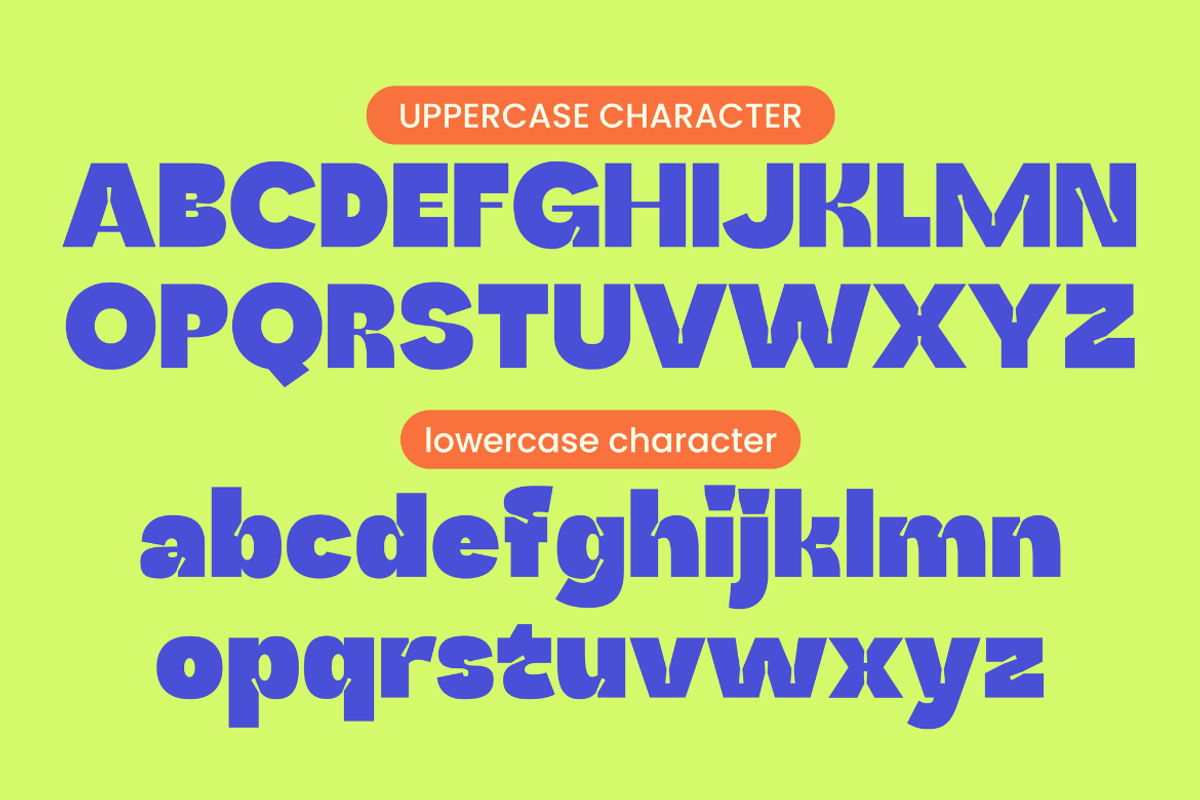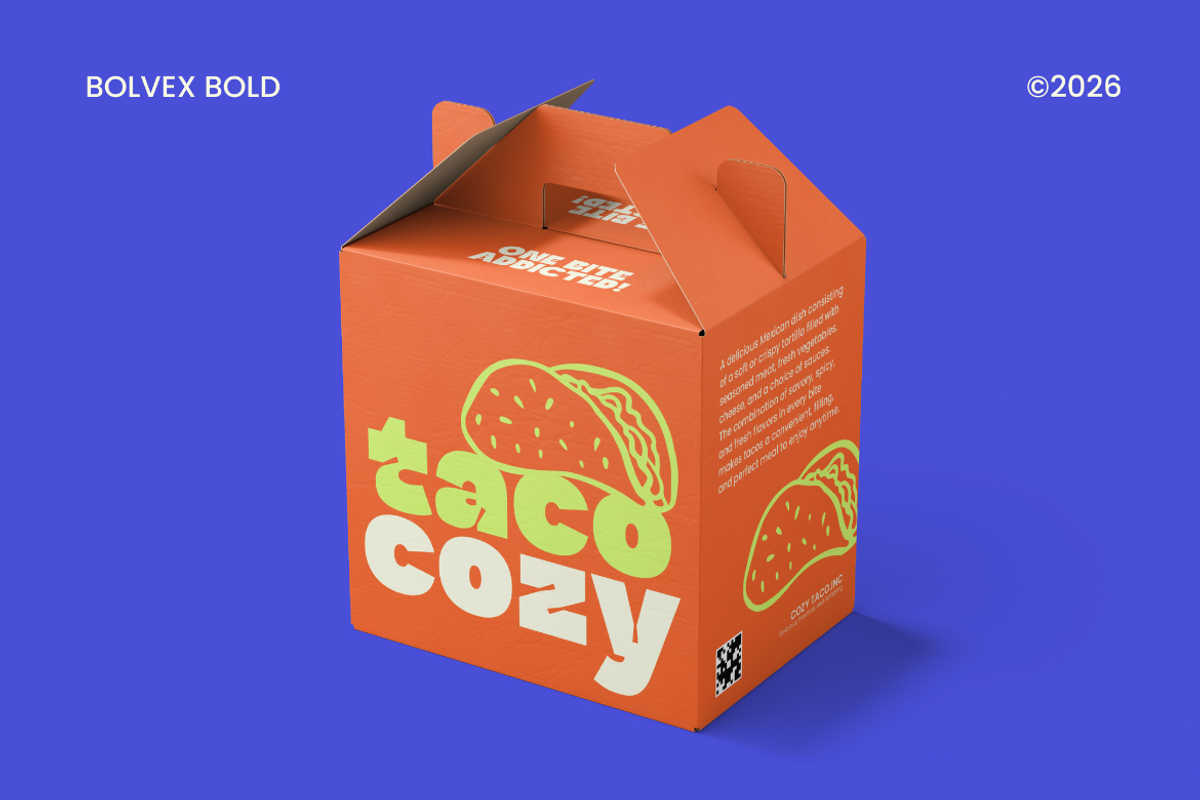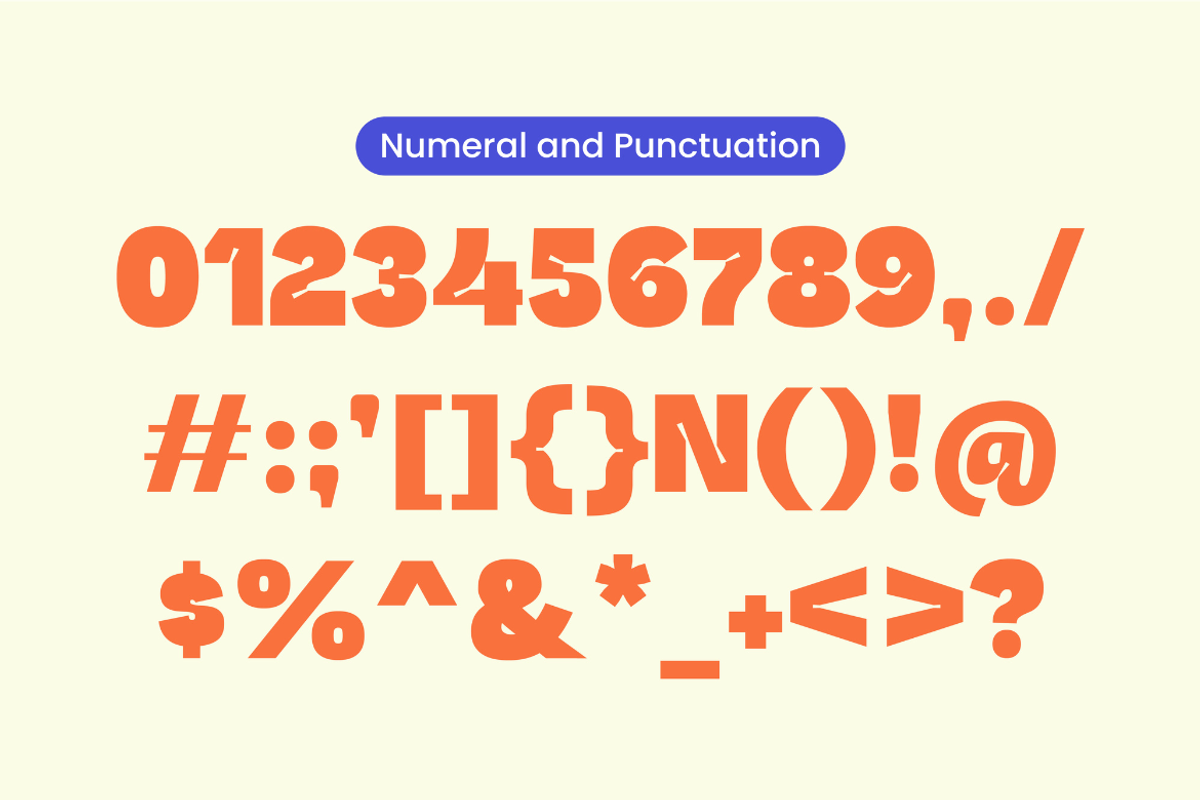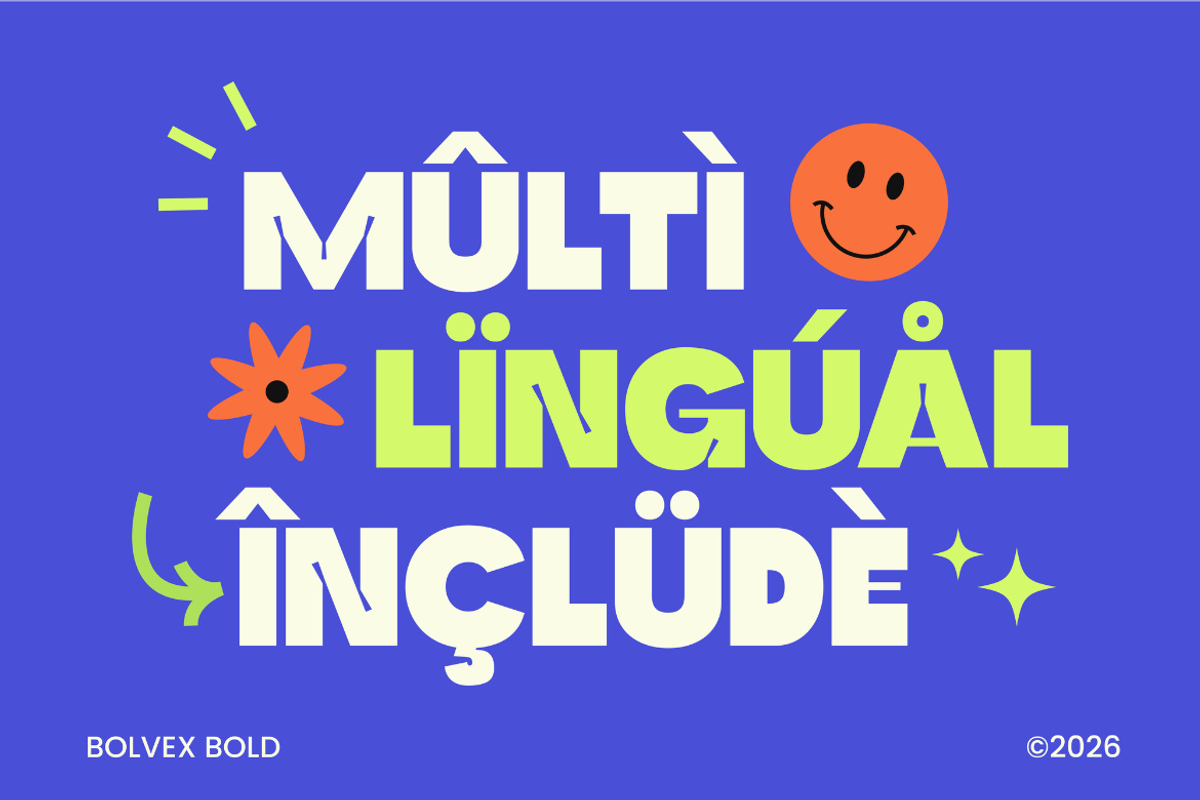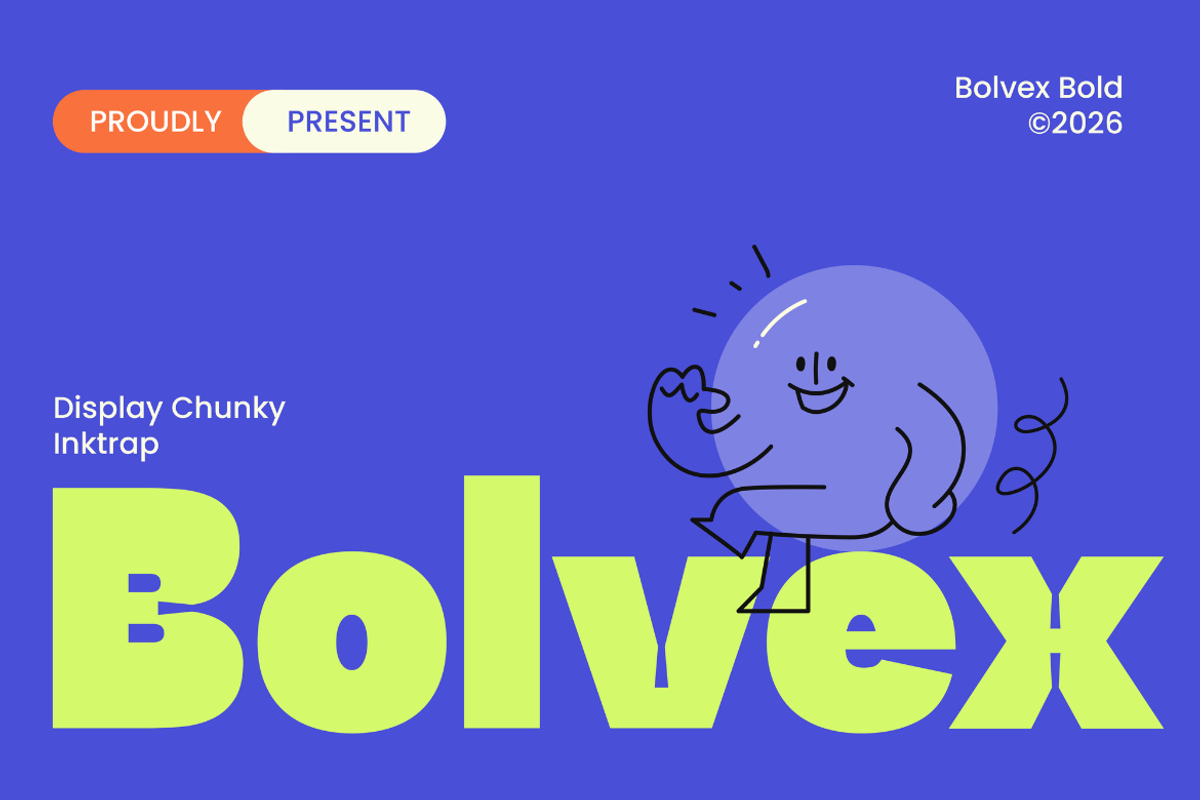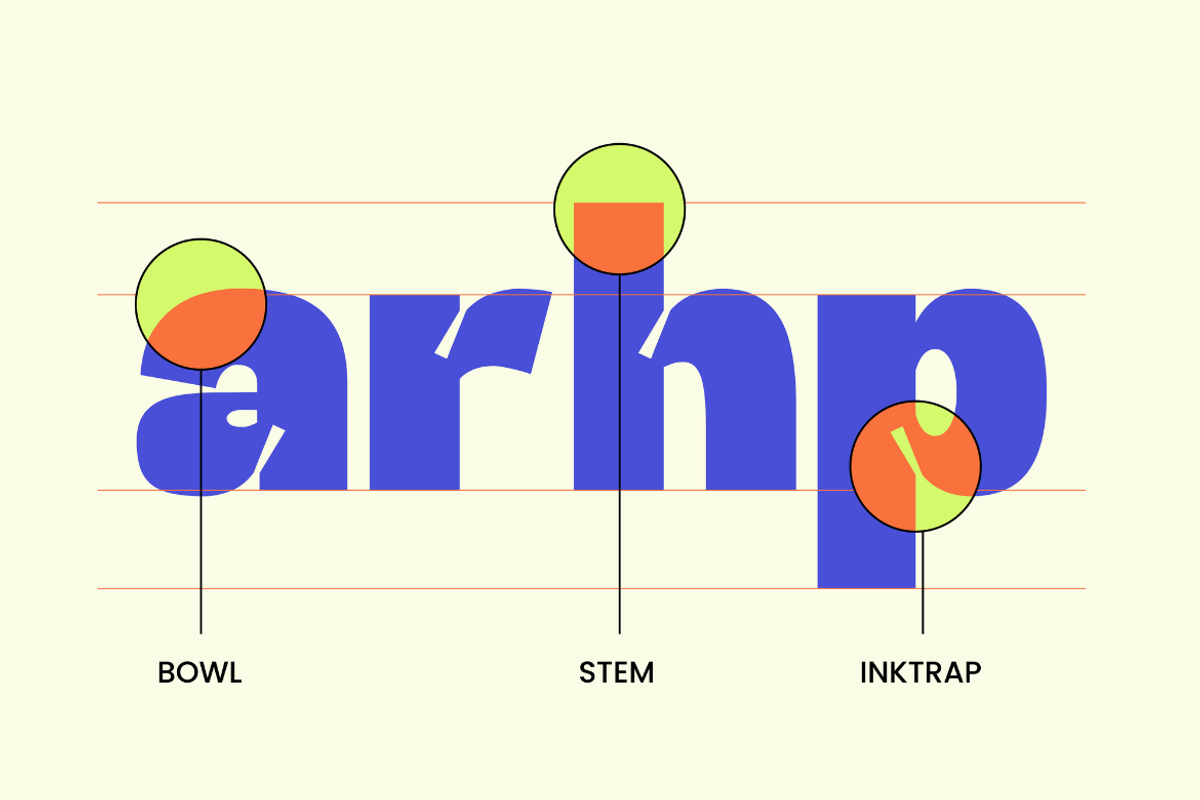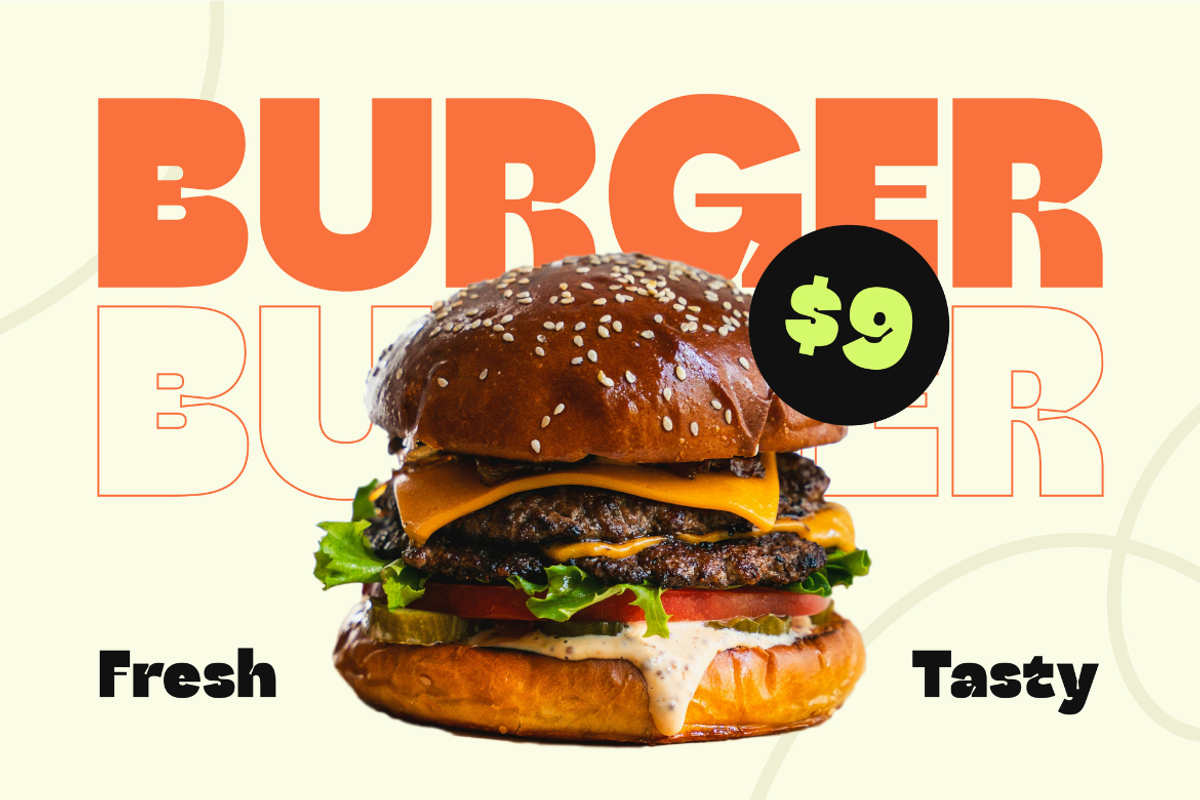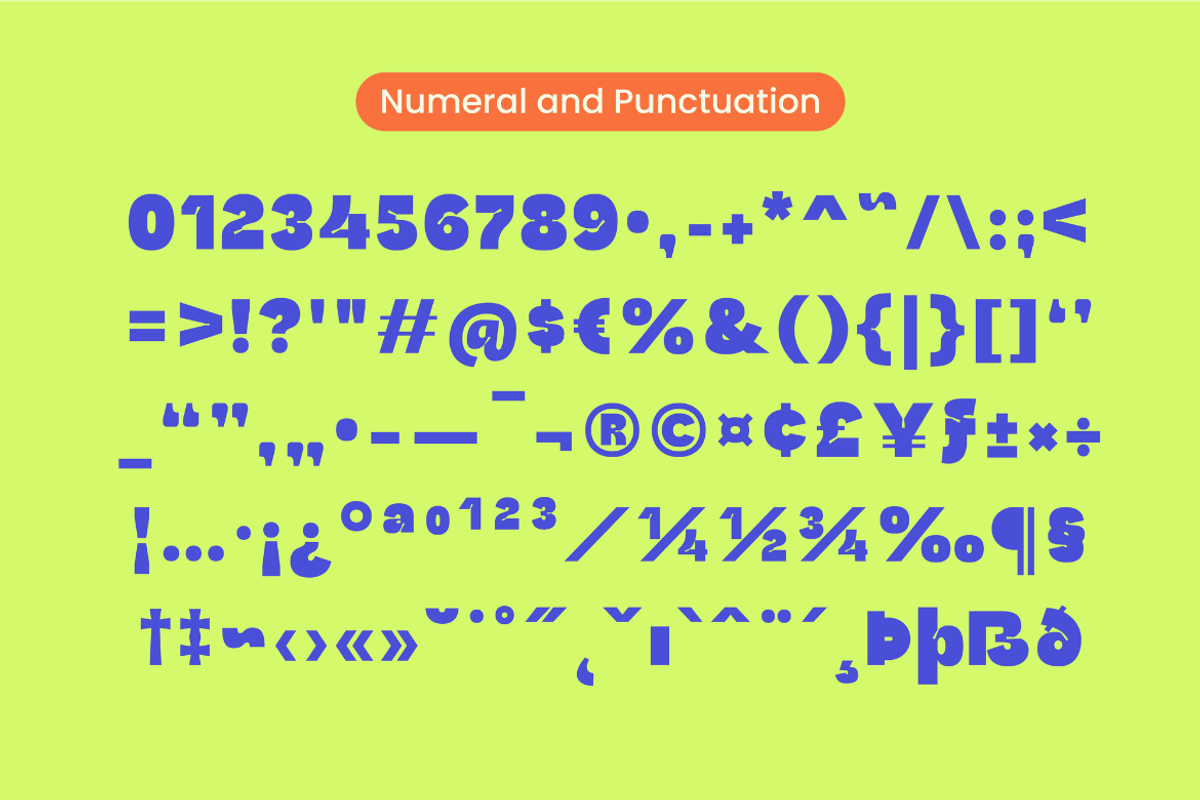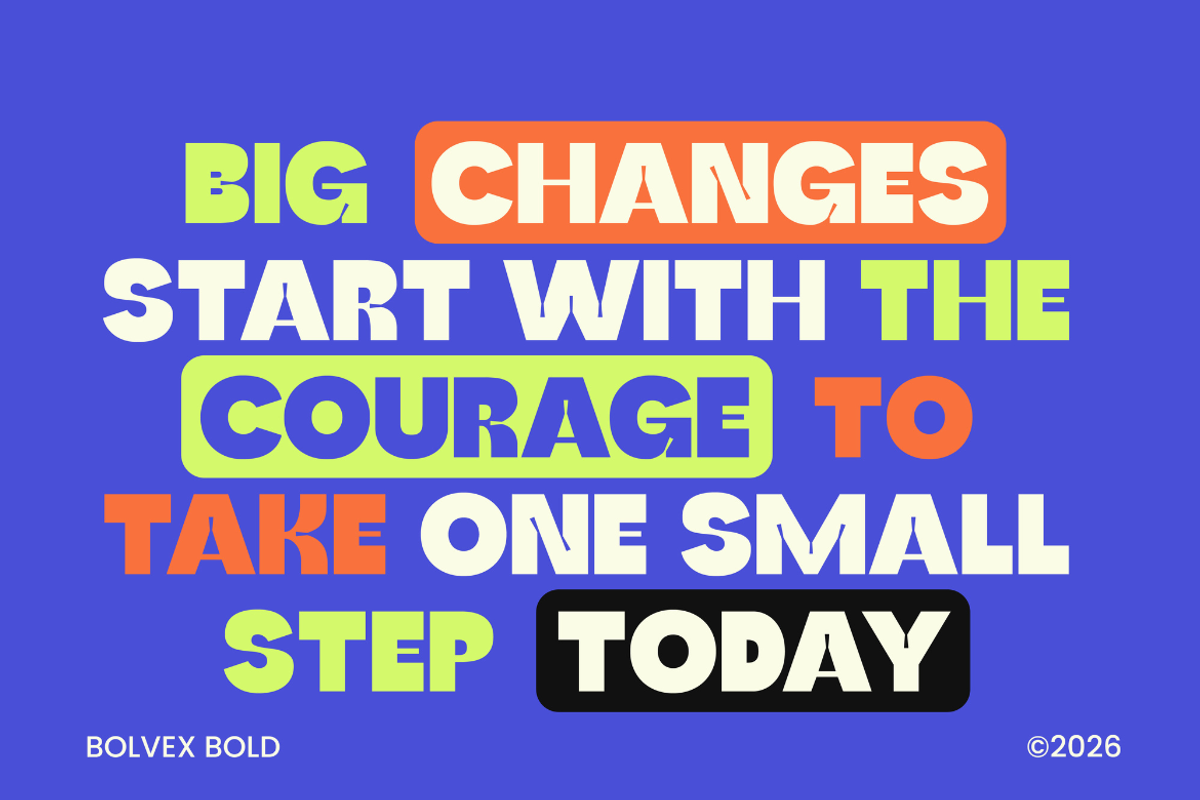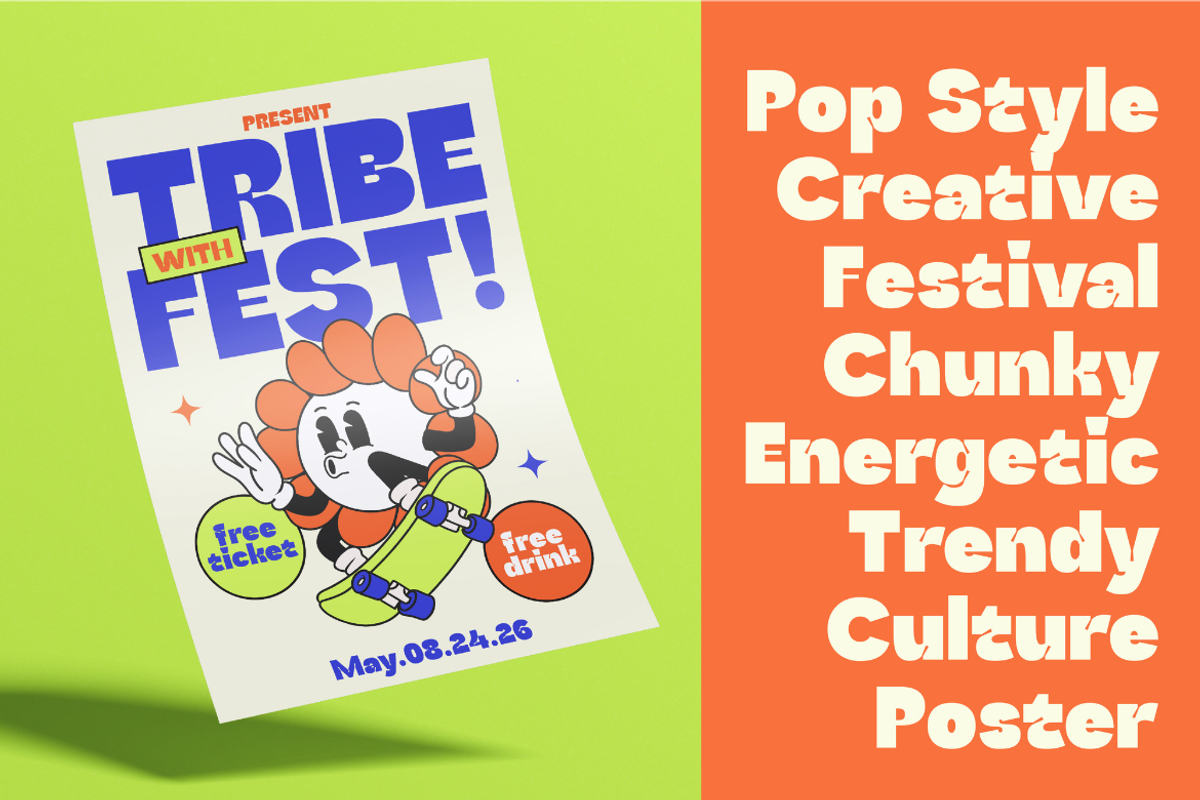
Bolvex
Bolvex is a bold display typeface built to make every headline impossible to ignore. Featuring chunky proportions, smooth rounded corners, and a modern geometric structure, Bolvex delivers a playful yet confident personality that instantly grabs attention.
Designed for creatives who want bold typography with a clean and approachable feel, Bolvex works perfectly across branding, packaging, posters, logos, social media, merchandise, and editorial headlines. Its thick letterforms maintain excellent readability while creating maximum visual impact, making it an ideal choice for brands that want to stand out.
Whether you're creating food packaging, lifestyle branding, kids products, streetwear graphics, or eye-catching advertising campaigns, Bolvex provides the bold character your designs deserve.